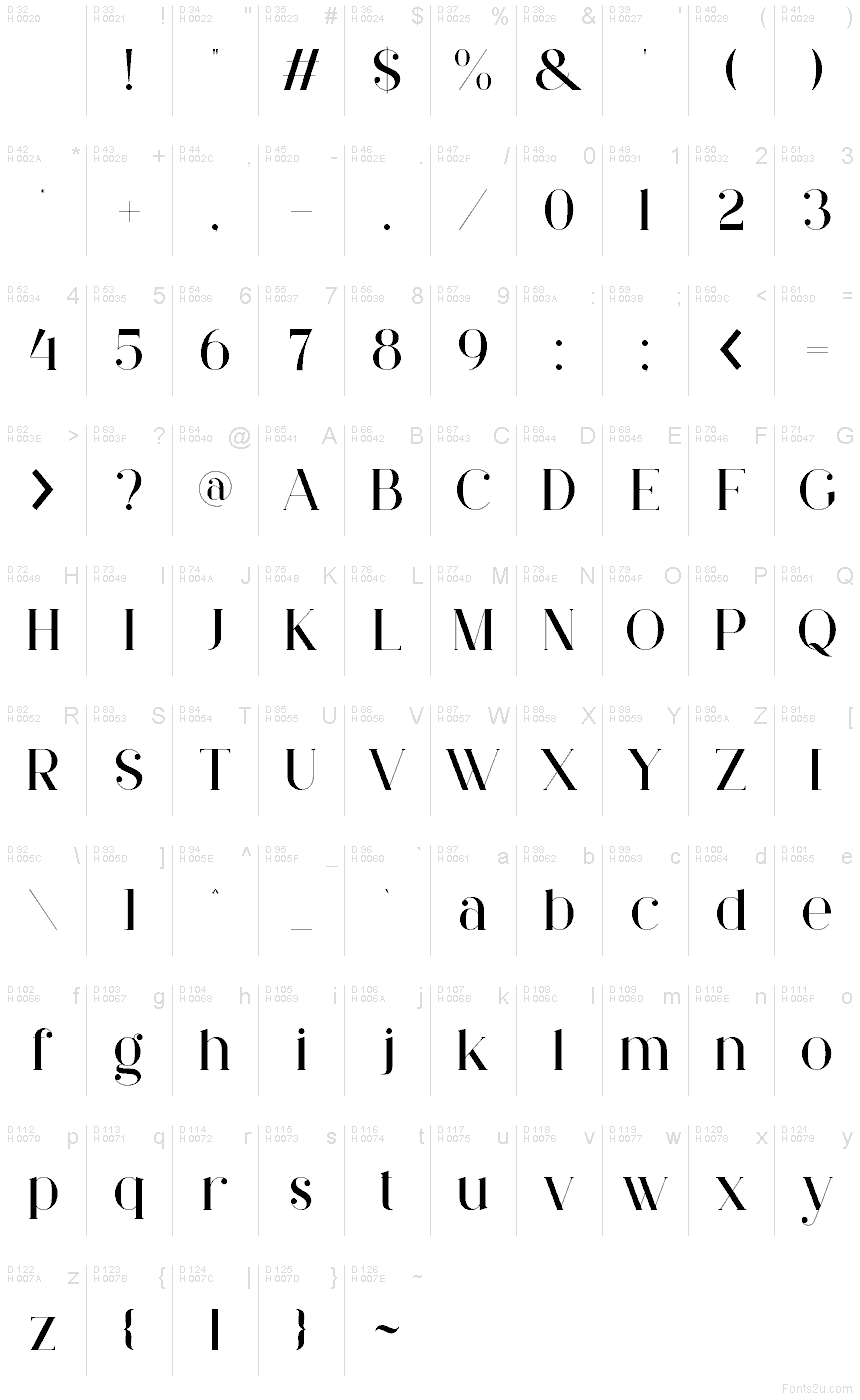
Veline Regular
Veline font by Ermedia Studio is a free serif font. It stands out with razor-thin hairlines against inky verticals, crisp wedge serifs, and sculpted apertures that feel both editorial and luxurious. The rhythm is tight yet graceful, giving headlines a poised snap while keeping curves silky and confident.
Using Veline, headlines and logotypes land with couture polish—think fashion branding, magazine covers, beauty packaging, high-end posters, event invitations, and editorial pull quotes. This free font shines on large sizes where its delicate hairlines stay sharp; give it a touch of tracking to let the forms breathe. For body copy or captions, pair it with a clean grotesk sans to balance the drama and keep layouts readable.